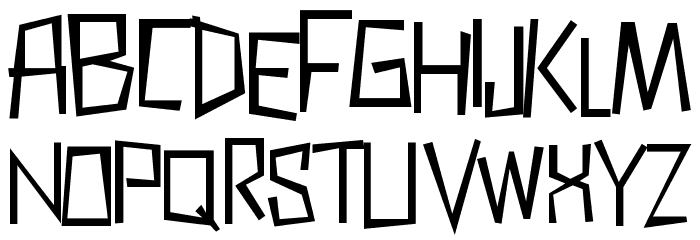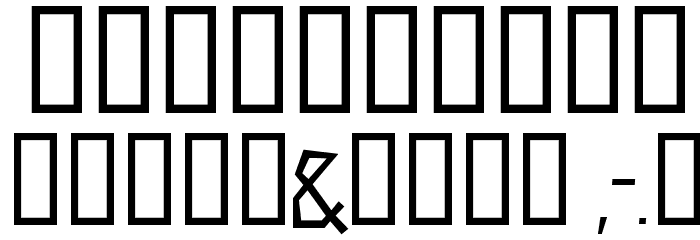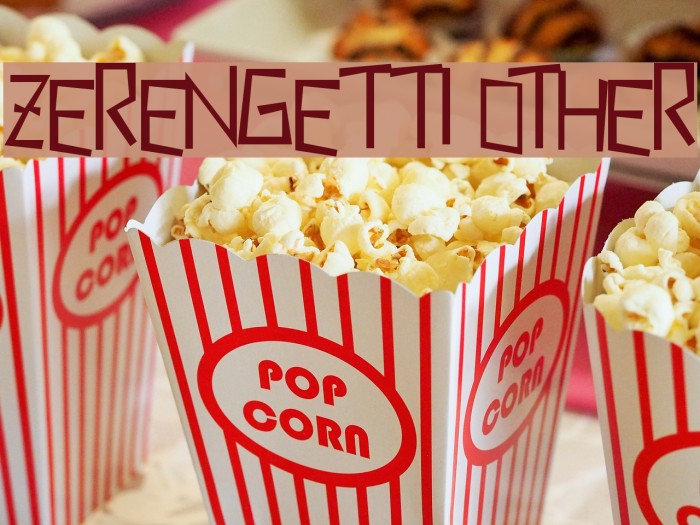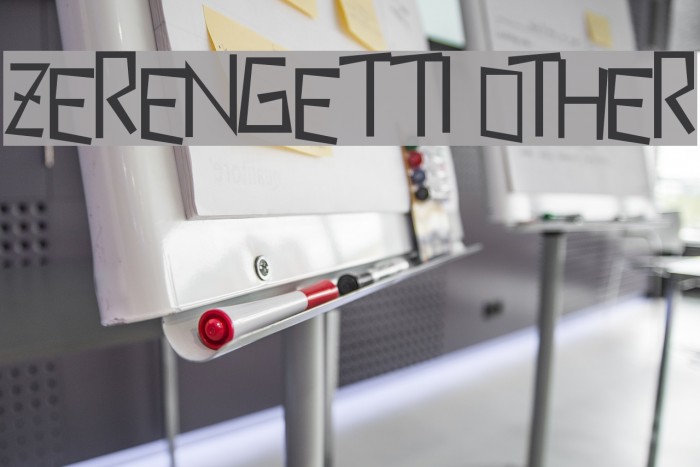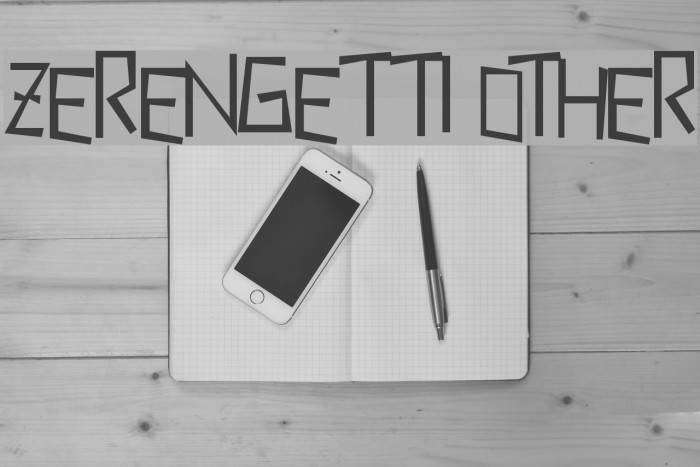
Zerengetti Other Font
This font features a bold and angular design, characterized by its sharp edges and geometric shapes. The uppercase letters are particularly striking, with a strong presence and a unique, almost tribal aesthetic. The lowercase letters maintain the same angular style, creating a cohesive look across the alphabet. Numbers and special characters are equally bold, with a consistent thickness that adds to the font's overall impact. The style is reminiscent of modern graffiti or street art, making it ideal for projects that require a bold and unconventional look.
A bold, angular font with a modern, tribal aesthetic.
- Proposed Projects: Ideal for street art designs, modern posters, edgy branding, and music album covers.